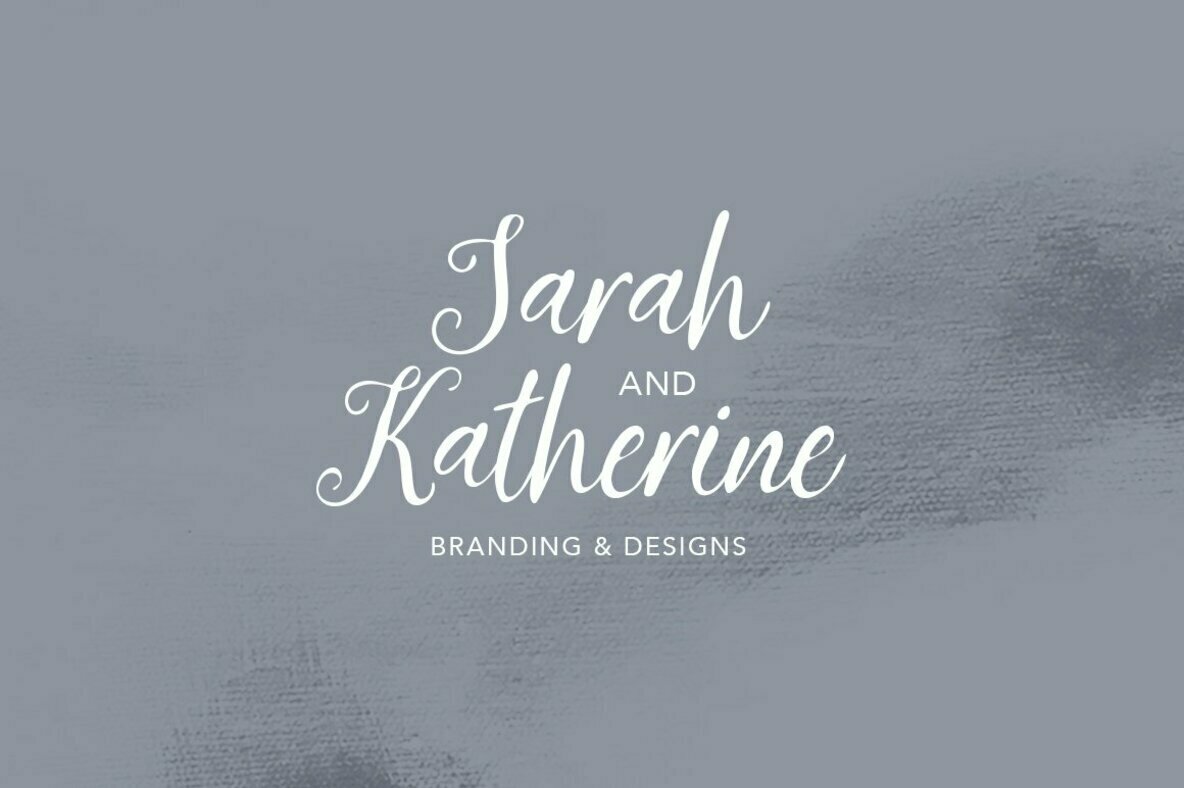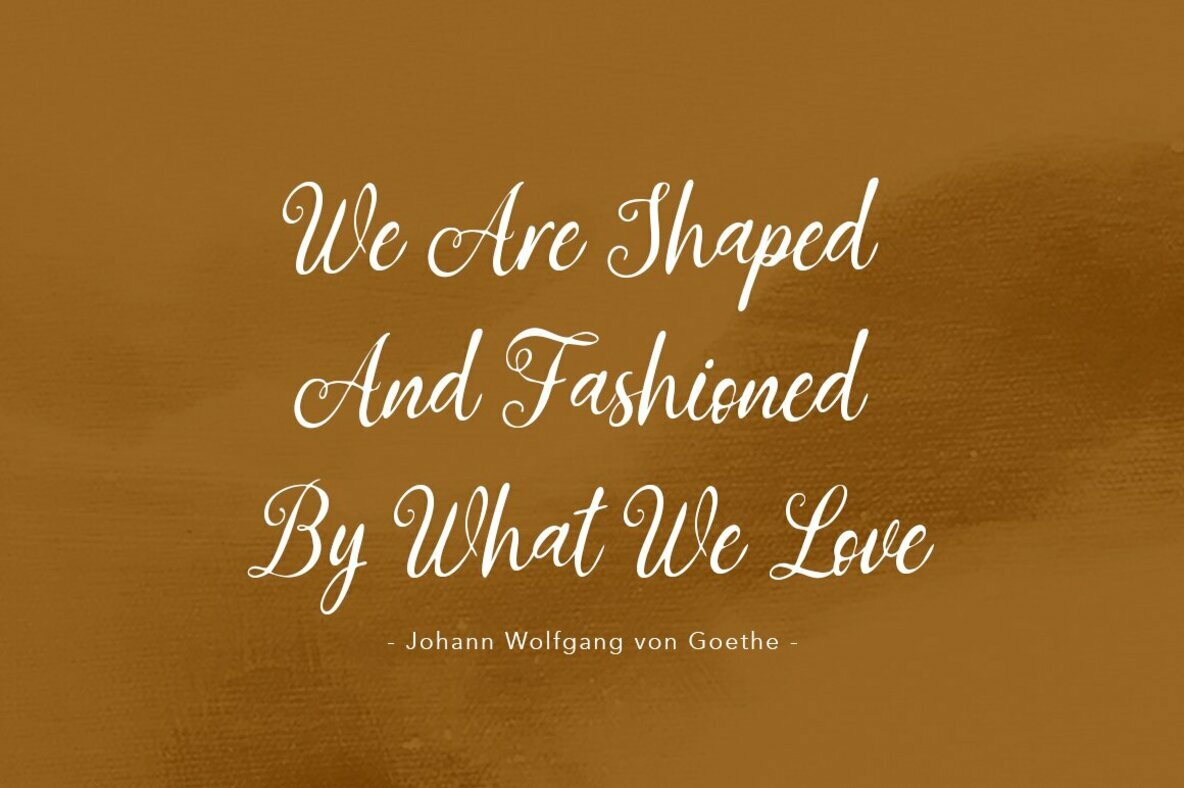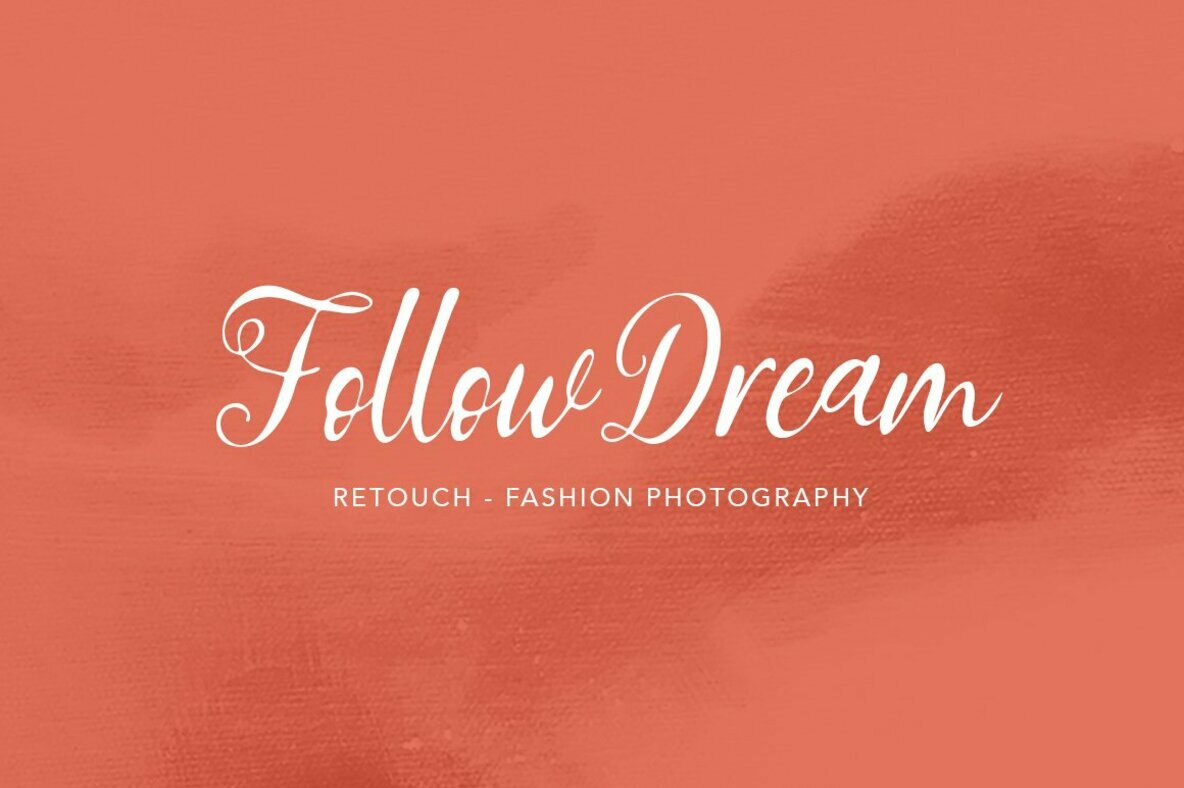
Grettana Script
Grettana Script embodies the charm and fluidity that define sophisticated handwritten fonts. With its graceful strokes and casual allure, it adds a personal touch to an array of design projects, including logos, greeting cards, branding, and more.Grettana Script: Elegance in Handwritten Form
Grettana Script is your go-to choice for projects needing a touch of elegance and individuality.